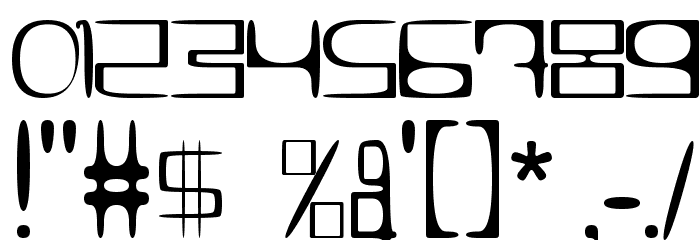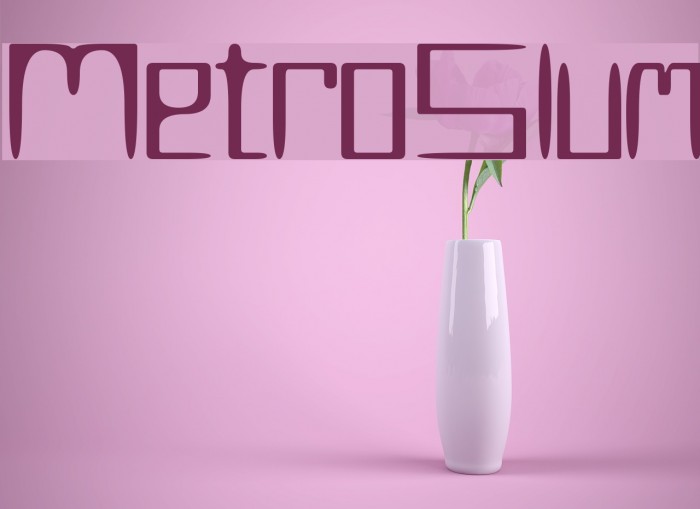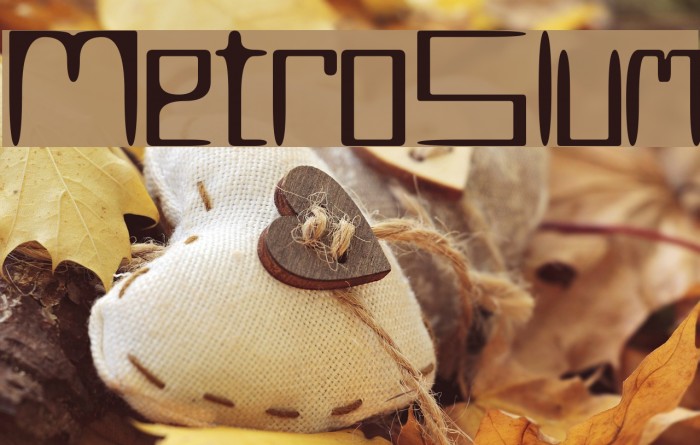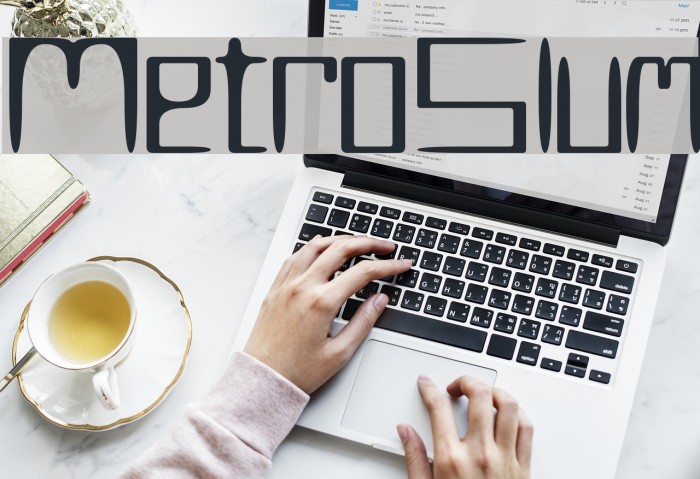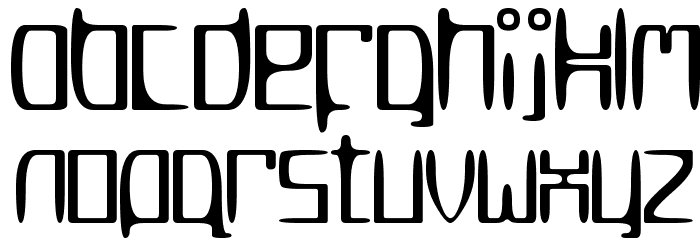
MetroSlum Font
MetroSlum Description
This font exhibits a unique and futuristic design with a geometric and somewhat abstract appearance. The characters are composed of bold, thick strokes with a consistent width, creating a uniform and cohesive look. The uppercase letters are particularly striking, featuring sharp angles and a modern aesthetic. The lowercase letters maintain the same boldness, with some characters having distinctive curves and loops that add to the font's overall style. The numbers and special characters follow the same design principles, ensuring a seamless integration across all text elements. This font's distinct style makes it ideal for projects that require a modern and edgy look.
| Proposed Projects | Ideal for sci-fi themed designs, modern branding, posters, and digital artwork. |